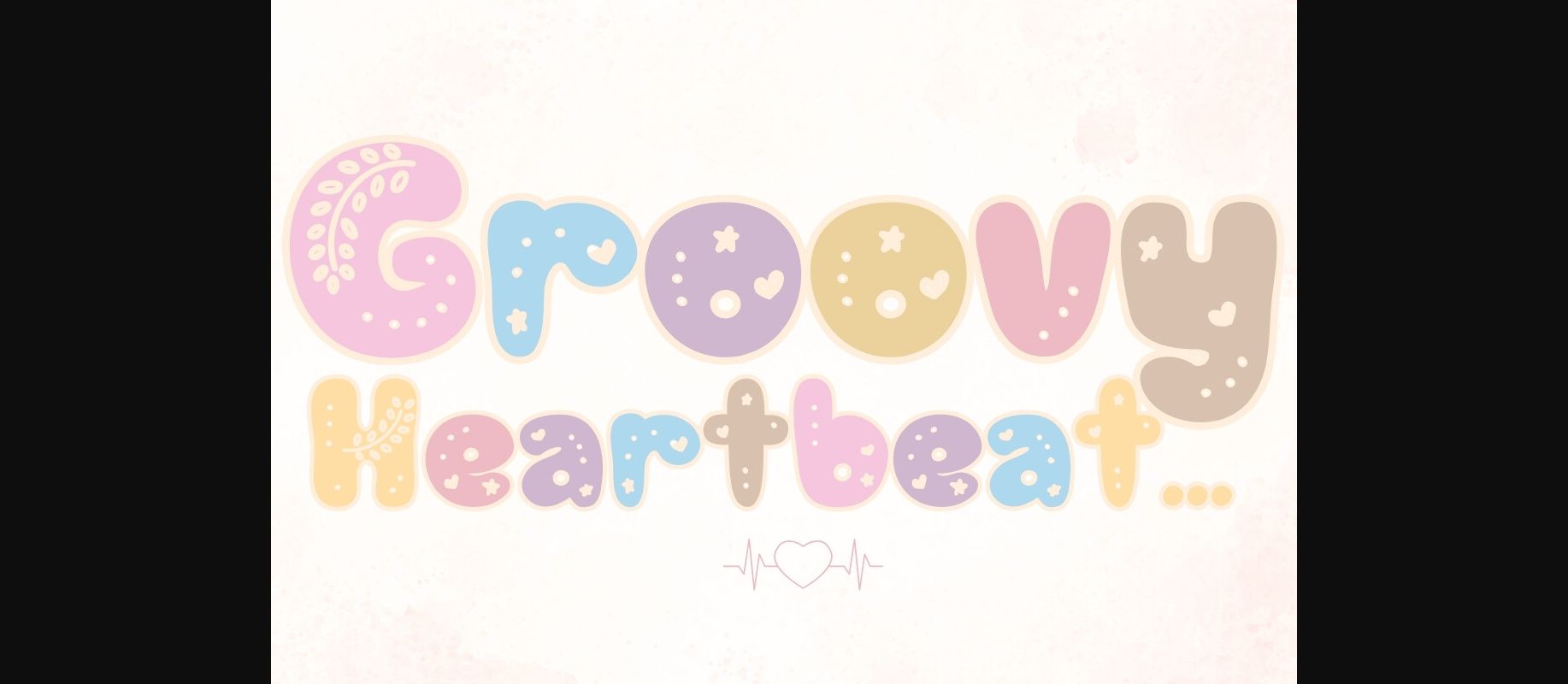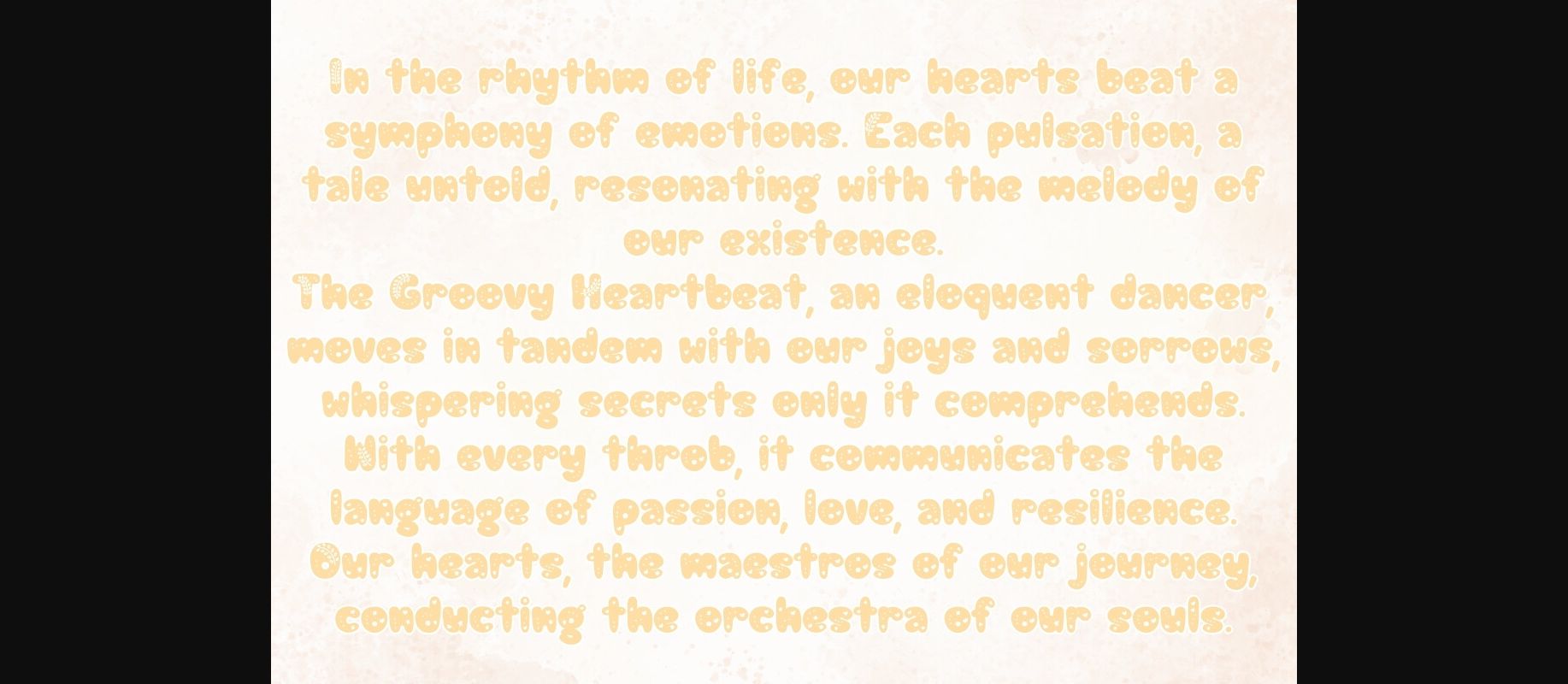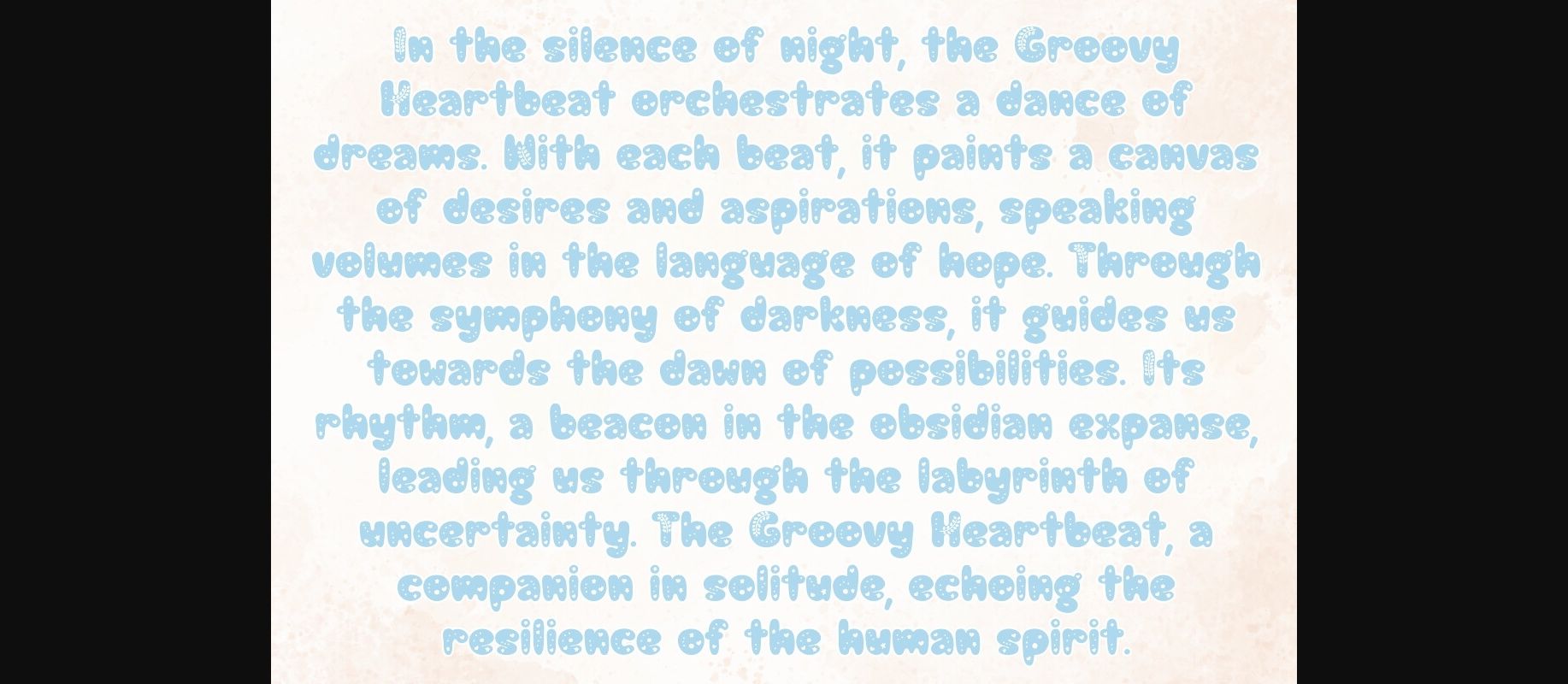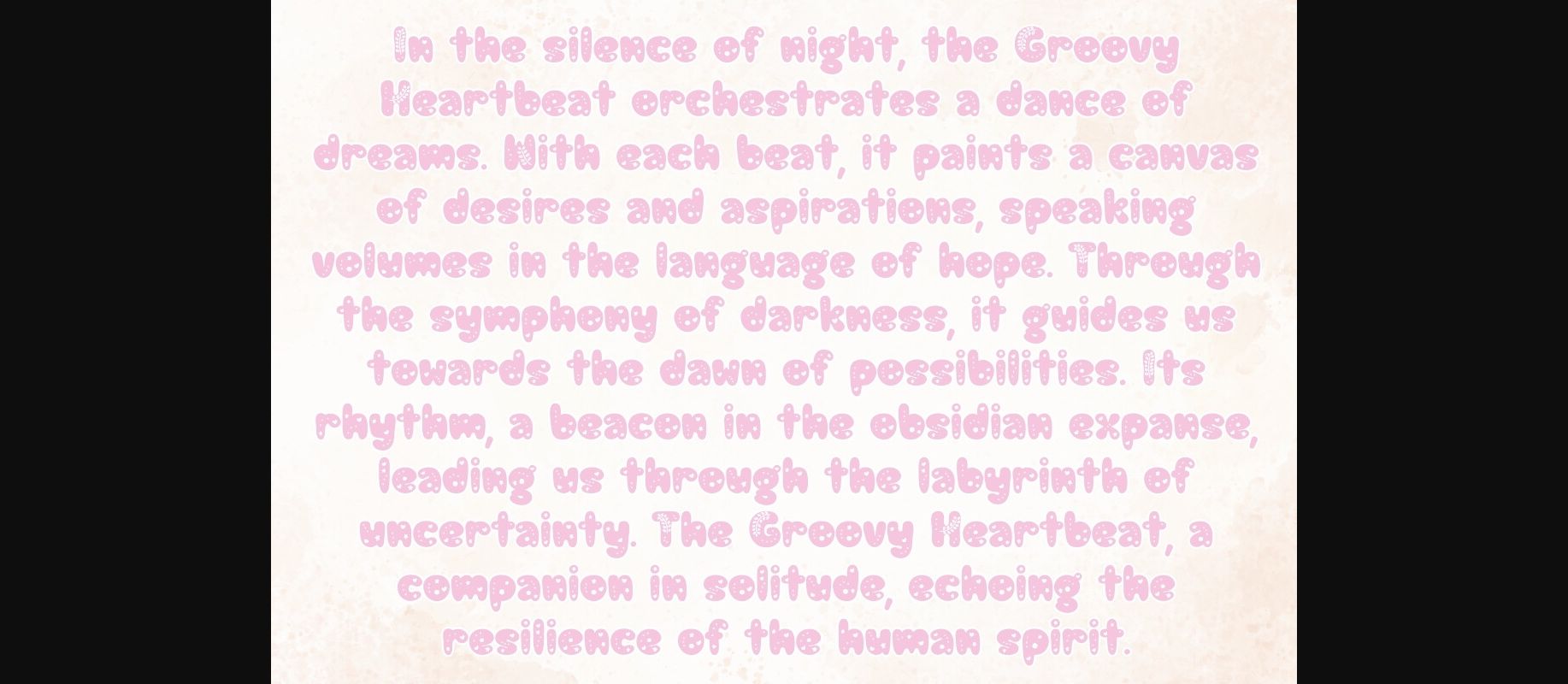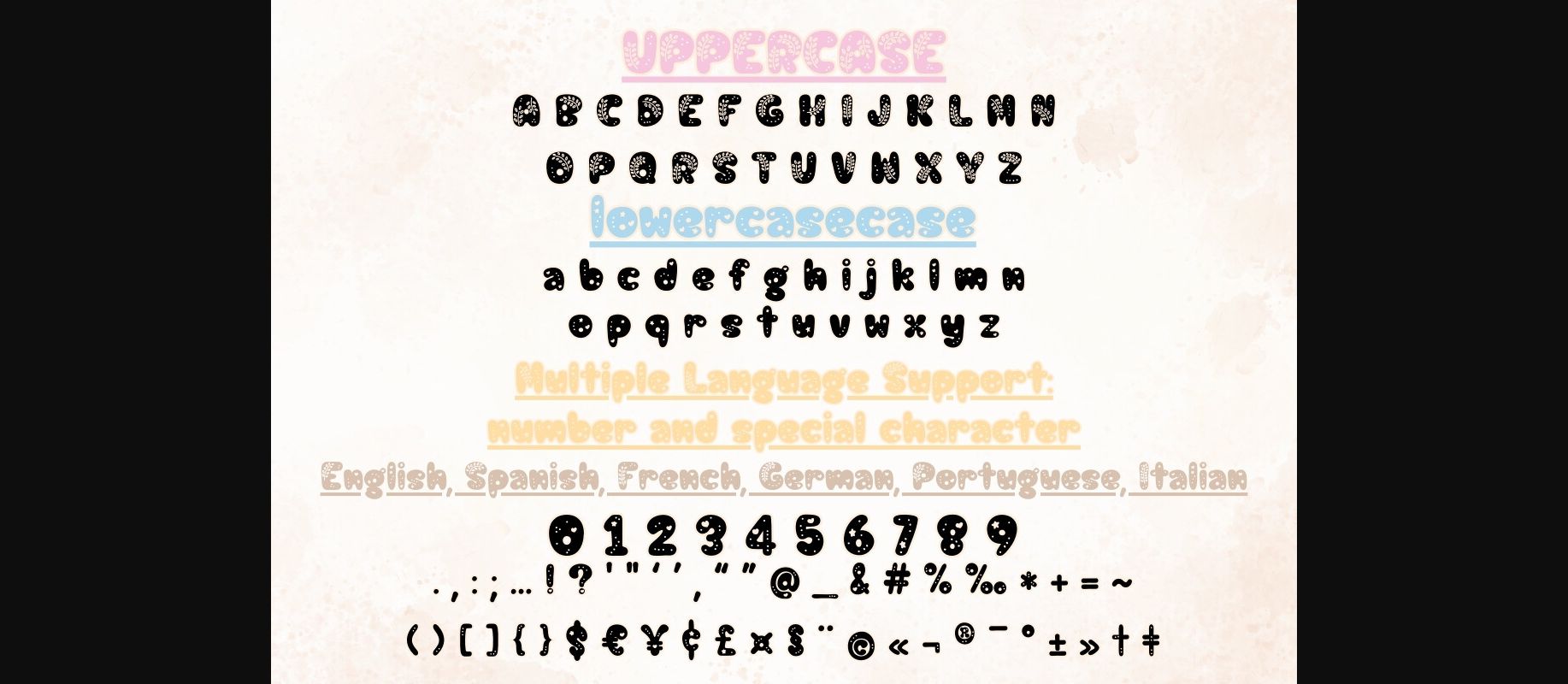
Groovy Heartbeat Font
About Groovy Heartbeat Font
Introducing Groovy Heartbeat – a charming decorative font with its own unique personality. This delightful font features playful curves and whimsical strokes, exuding a sense of warmth and friendliness. Perfect for adding a touch of sweetness to your designs, whether it’s greeting cards, invitations, or social media graphics. Let Groovy Heartbeat dance across your projects, spreading joy and cheer with every letter.